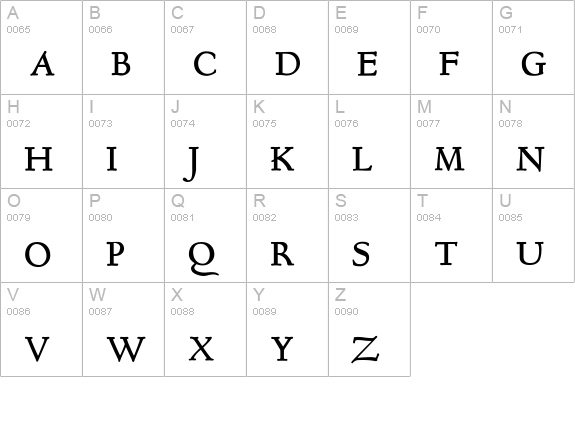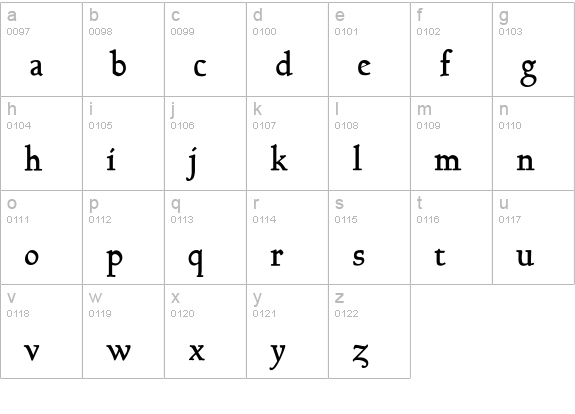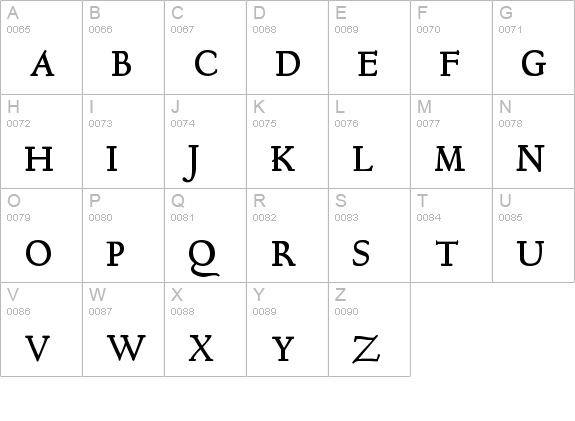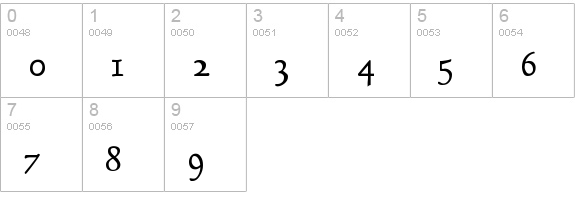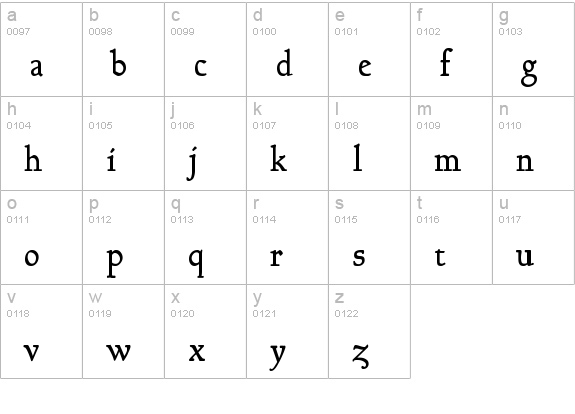
GoundyHundred-B Font Details
GoundyHundred-B font is a stunning display typeface that exudes sophistication and elegance. With its bold and distinctive letterforms, this font is perfect for creating eye-catching headlines, logos, and branding materials. The unique design of GoundyHundred-B font will make your projects stand out and leave a lasting impression on your audience. The best part? GoundyHundred-B font is available for free download at FontsMarket.com. This means you can easily access this high-quality font without any cost, making it a valuable addition to your font library. Don't miss out on the opportunity to elevate your designs with the beautiful GoundyHundred-B font today!